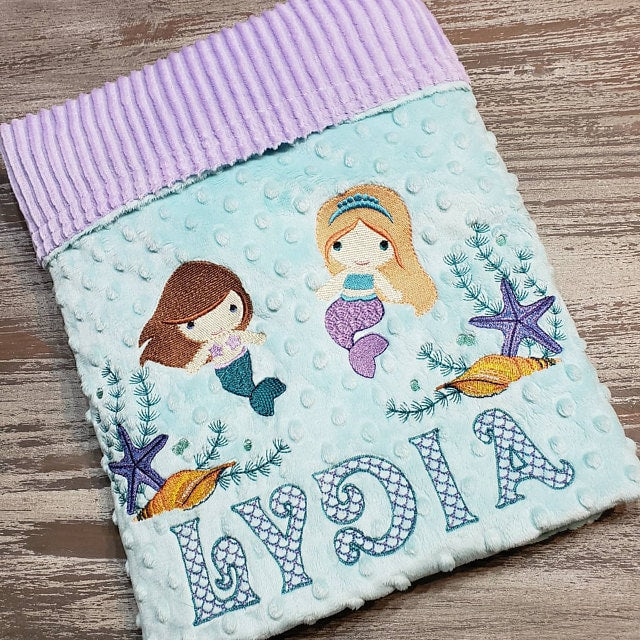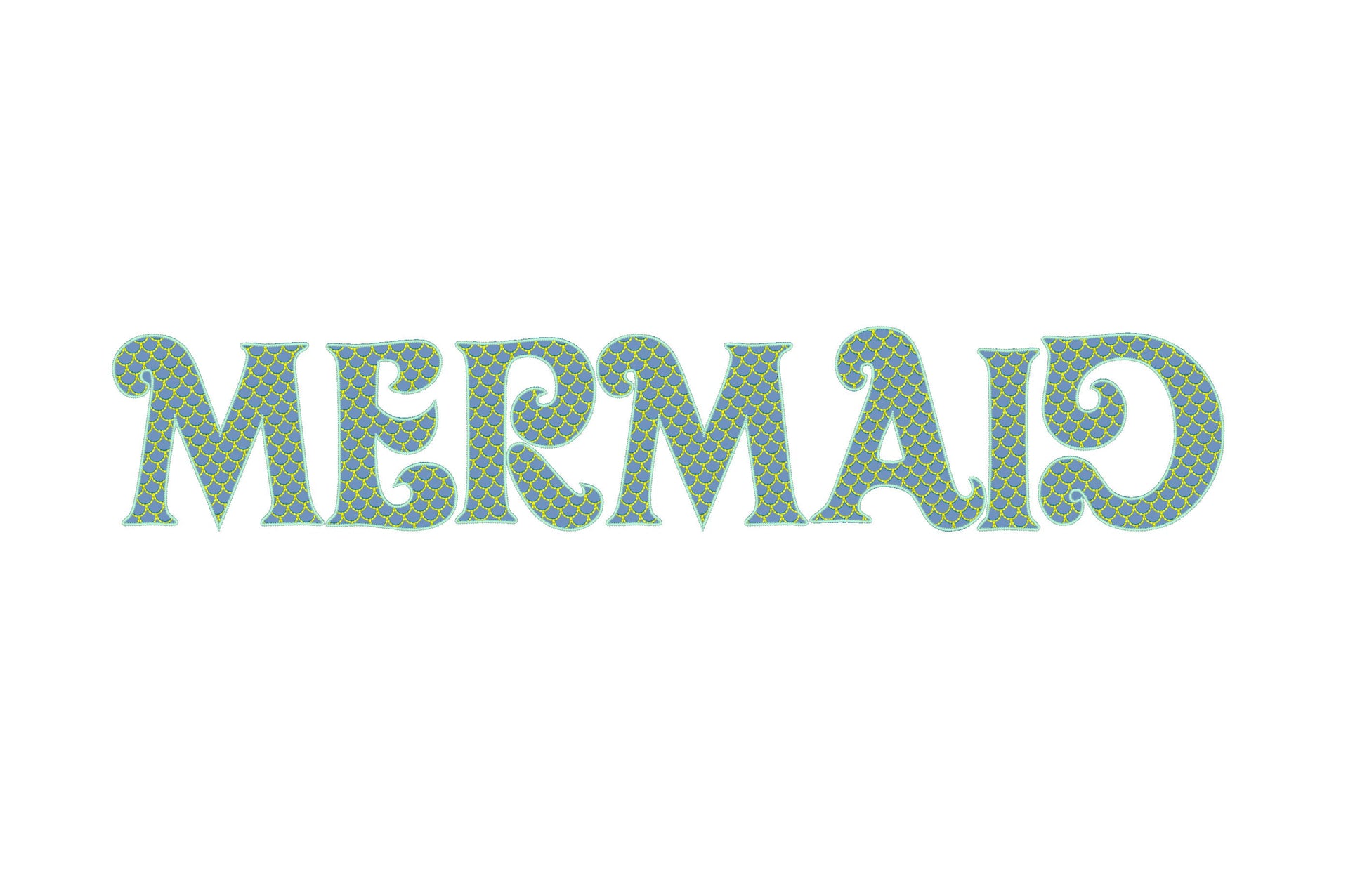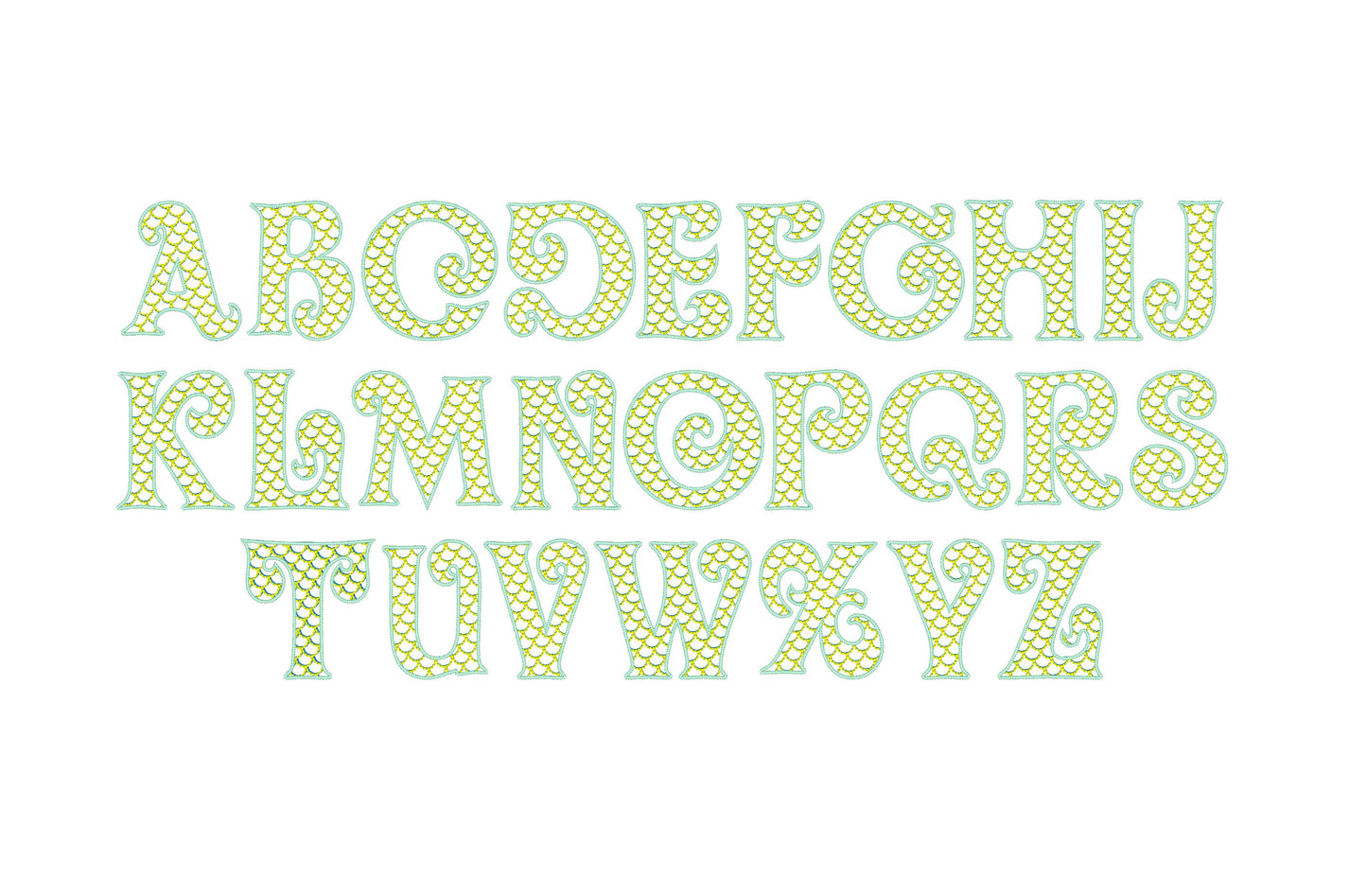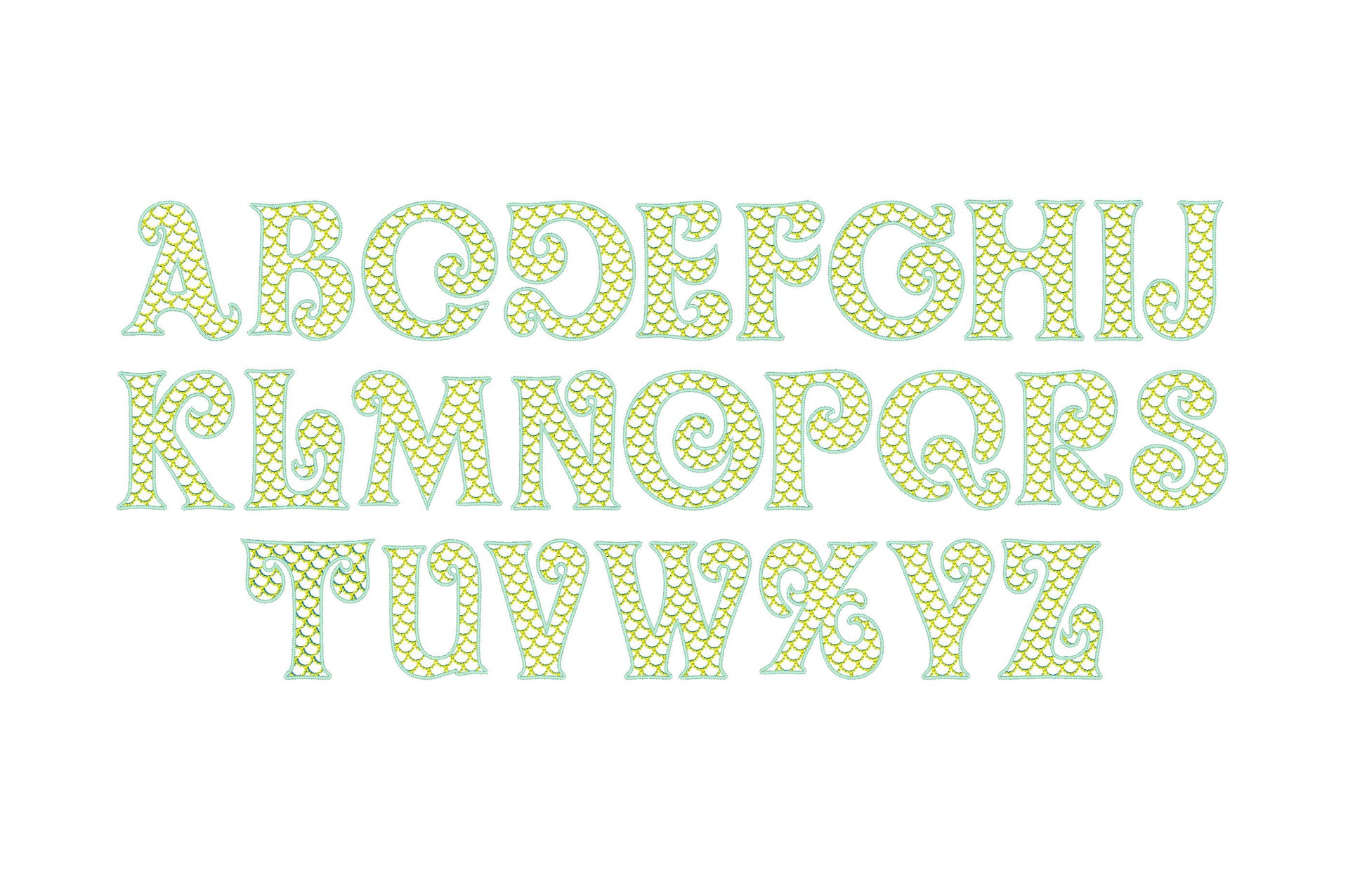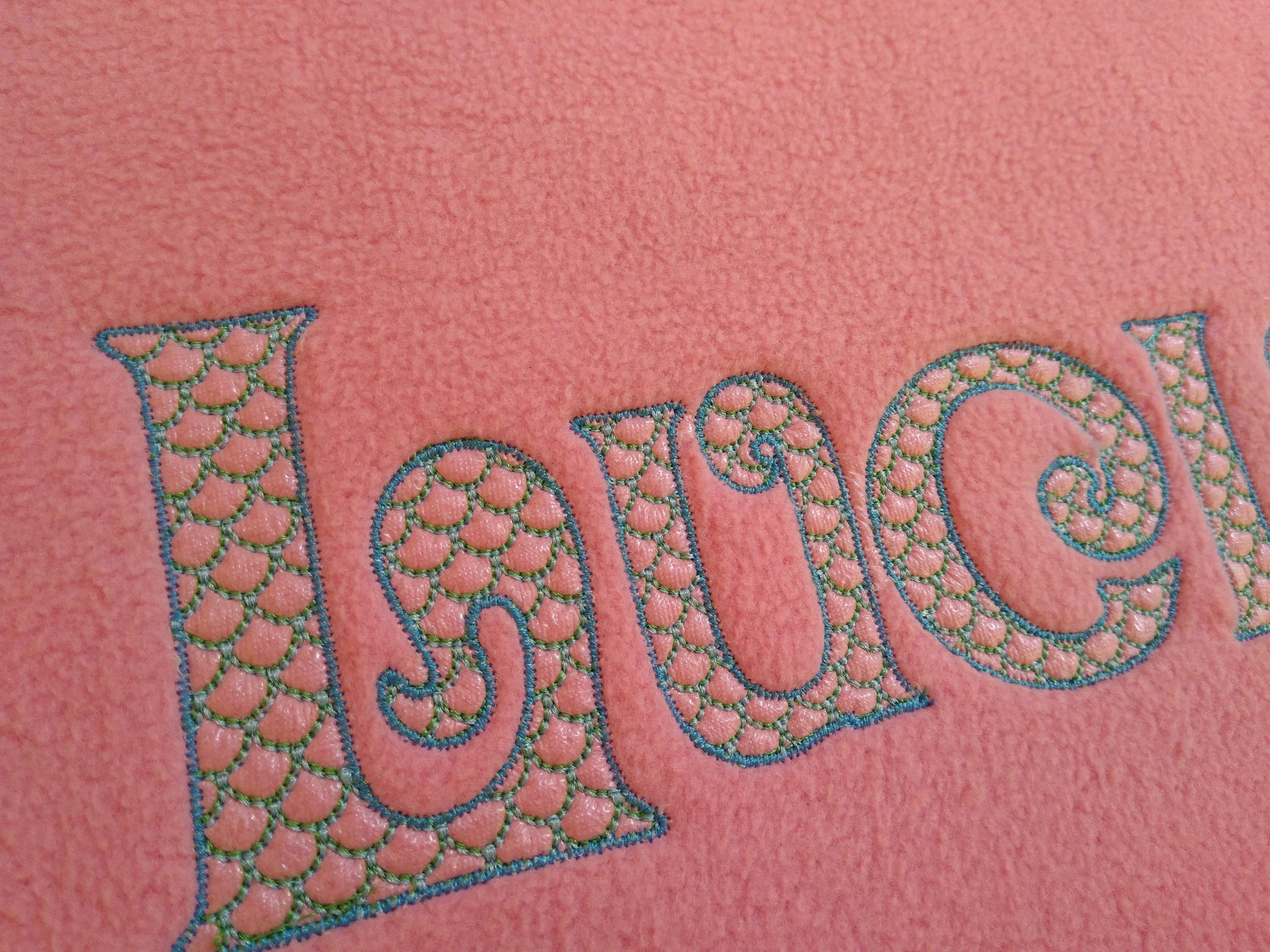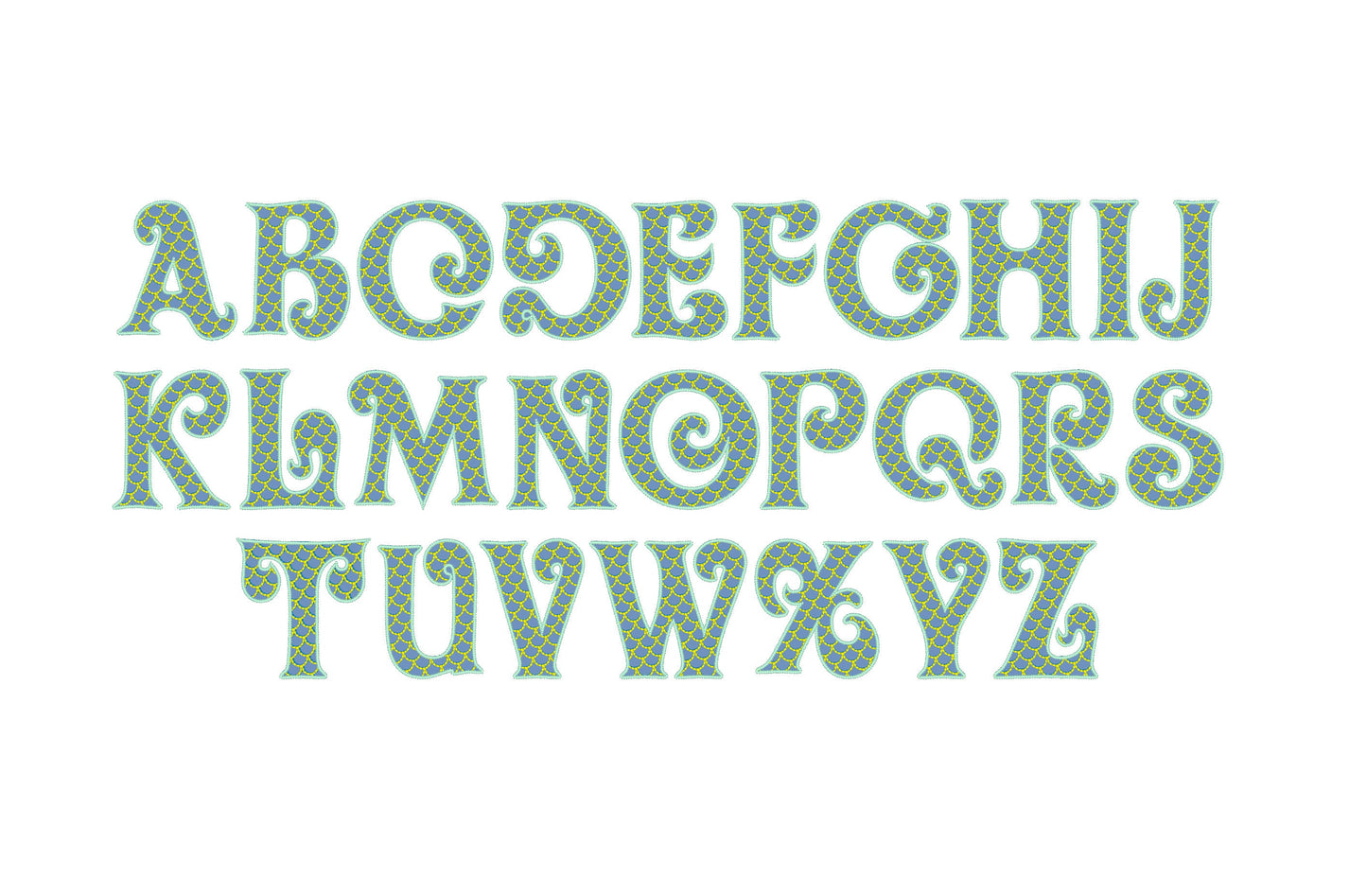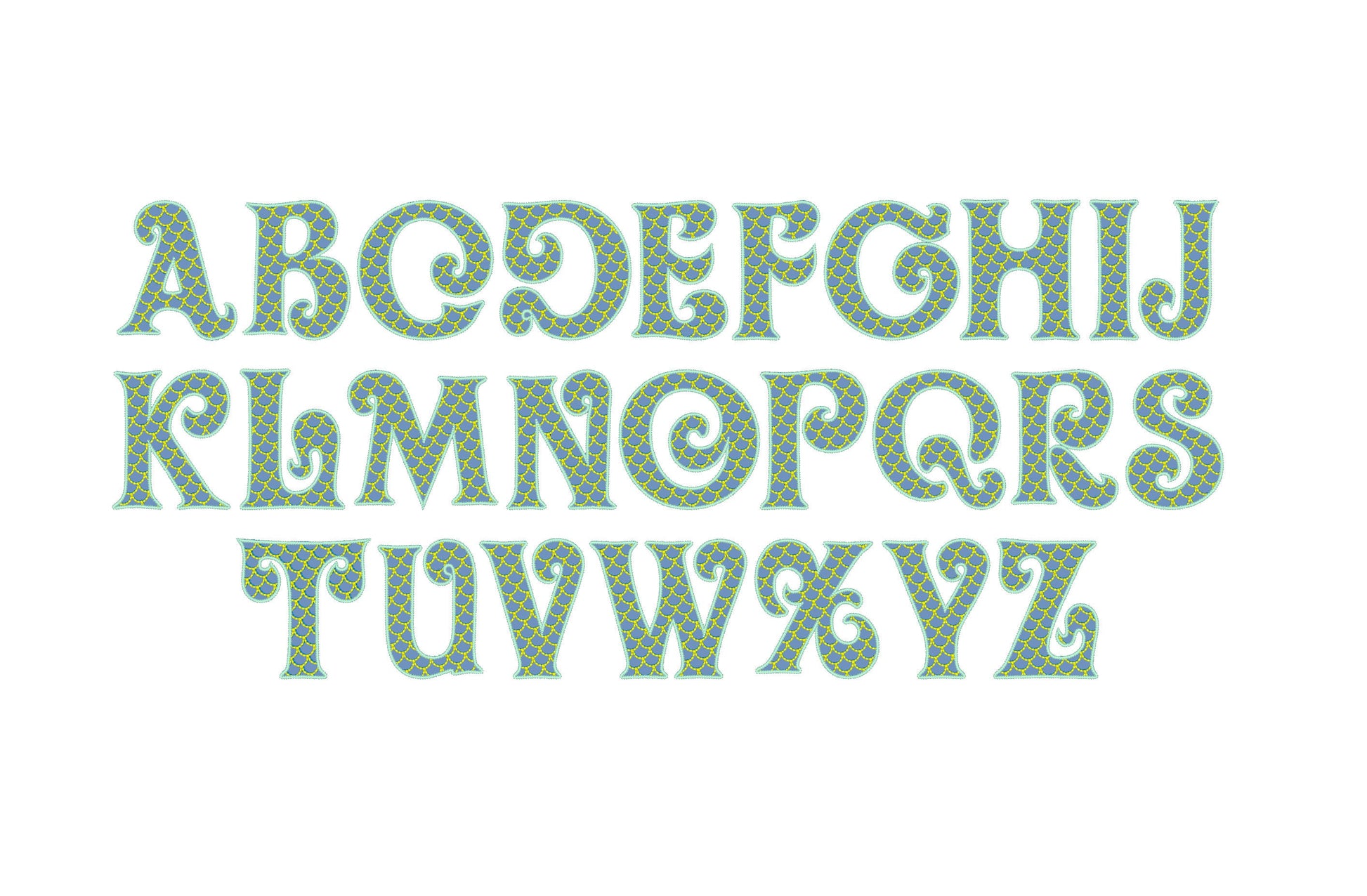
Or click to open the linkStunning 2 Color Mermaid light stitch Monogram Font machine embroidery designs whole alphabet 4x4 5x7, BX included INSTANT DOWNLOAD
The Mermaid circle monogram letters are absolutely adorable!